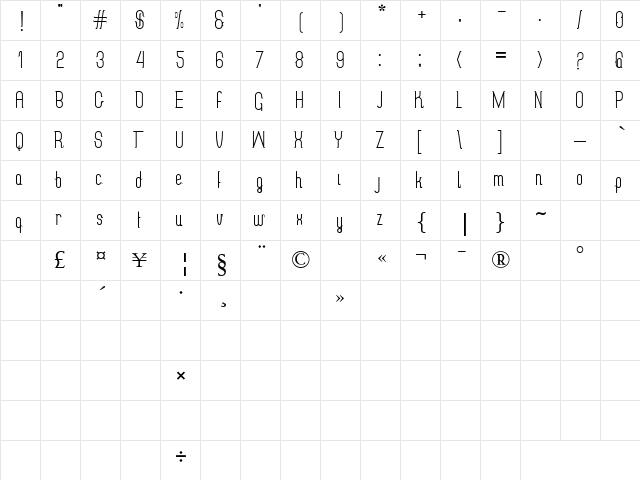
guenue Regular
Design Context for guenue Typeface
guenue offers clean, dependable letterforms without strong stylistic allegiance, making it a practical choice for designers who need flexibility.
Pro Tip: Use guenue in both headline and body roles to test its range before committing to a single application.